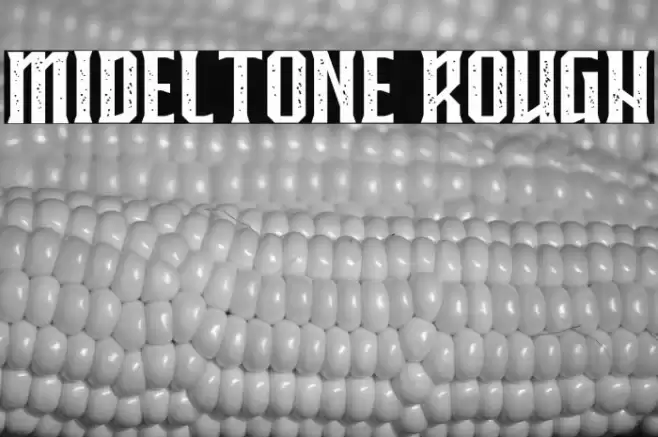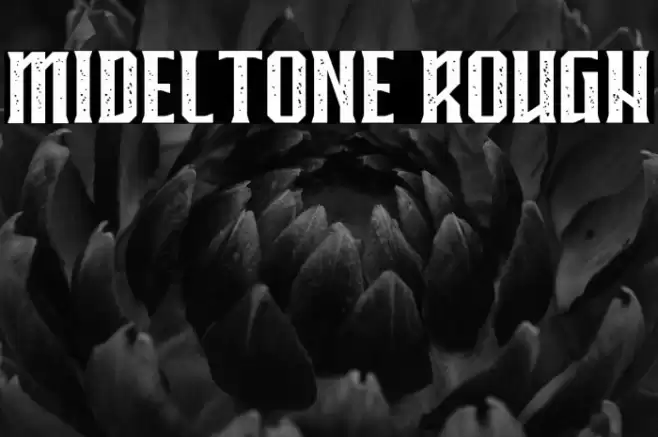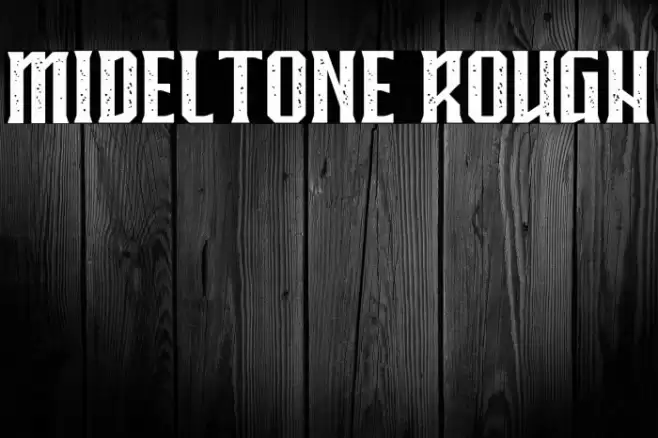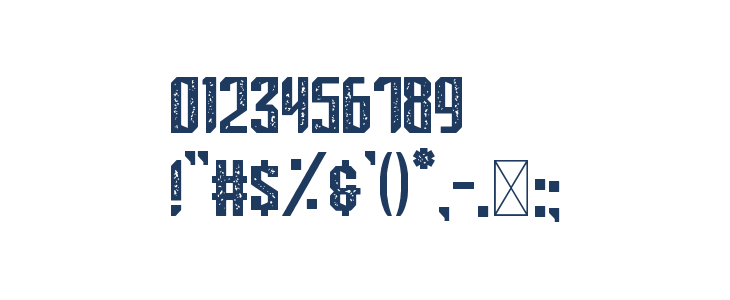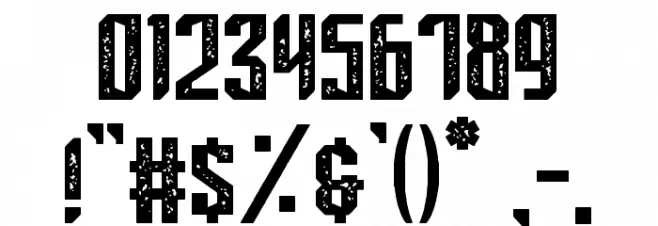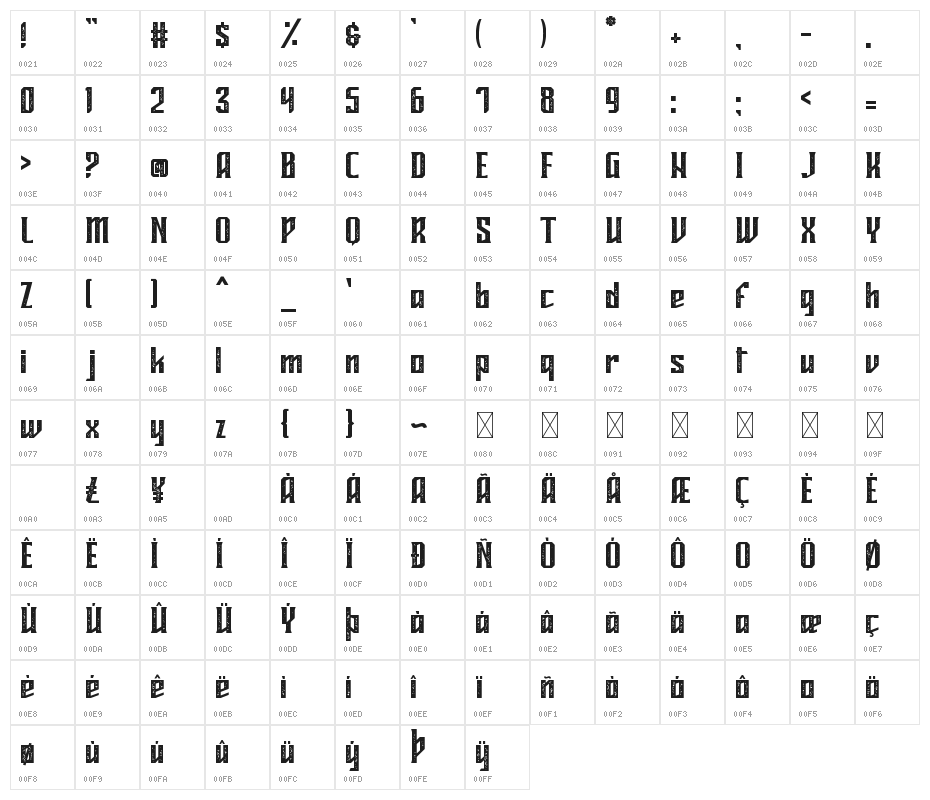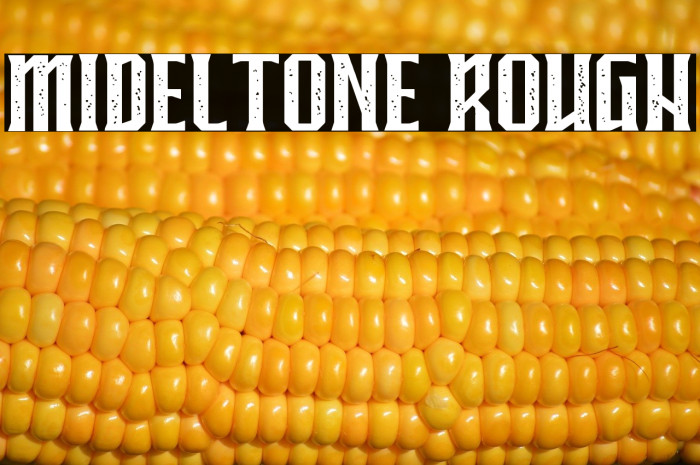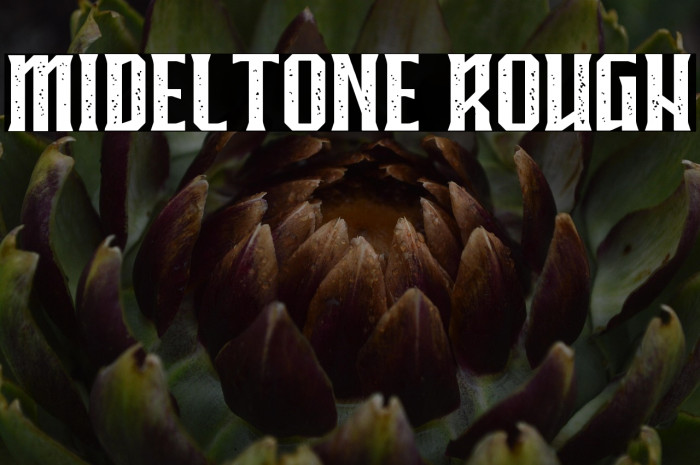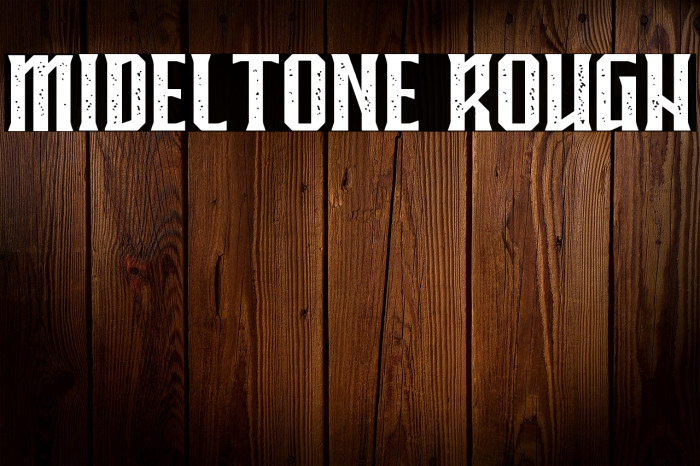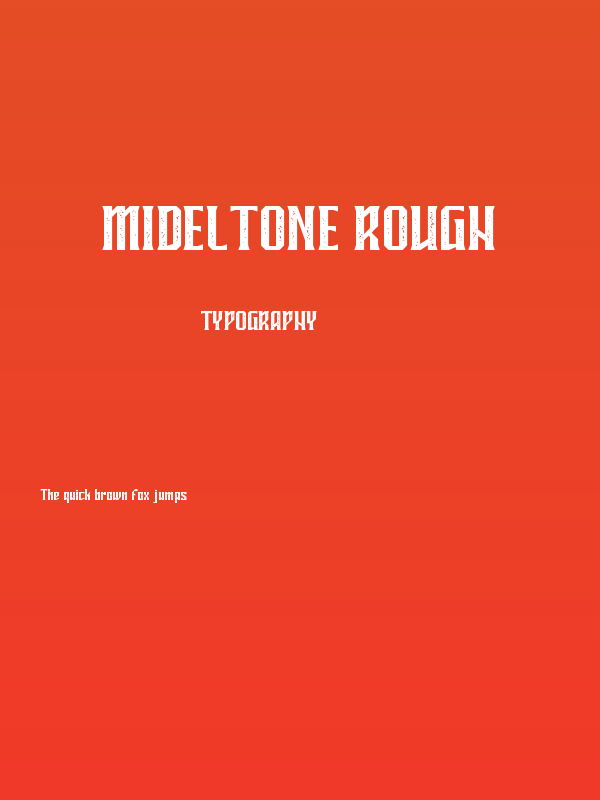
MIDELTONE ROUGH Font
MIDELTONE ROUGH Description
This font features a bold, rugged style with a distressed texture that gives it a weathered, vintage appearance. The uppercase and lowercase letters are designed with sharp, angular edges, contributing to a strong and impactful look. The numbers and special characters maintain this consistent style, making the font suitable for designs that require a bold statement. The texture within the characters adds a unique, gritty feel, reminiscent of worn-out signage or vintage posters.
A bold, distressed font with a vintage, rugged appearance from Regular fonts.
- Overall Style: Vintage